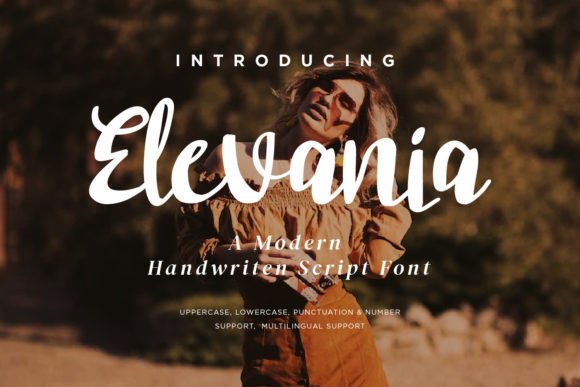
Introducing Elevania Font, the ultimate choice for all your clothing design needs. This captivating and charming creation will instantly draw your attention with its graceful curves and stylish design. Created by the talented Naharstdio, Elevania is more than just a font – it's a work of art that will elevate your designs to new heights.
With its fine strokes and elegant flourishes, Elevania exudes a sense of sophistication and refinement. Every letter is meticulously crafted, showcasing the dedication and expertise of its creator. This font is a true testament to the beauty of handwritten typography, making it the perfect choice for those who seek to make a statement with their designs.
But Elevania is not just about elegance and finesse – it also has a playful personality that adds a touch of whimsy and fun. Its unique combination of sophistication and playfulness sets it apart from other fonts, making it a standout choice for any project that needs a touch of creativity and originality.
Whether you're designing a logo, a website, or a clothing line, Elevania will add a unique and delightful flair to your creations. Its versatility knows no bounds, allowing you to experiment and explore various design possibilities. From bold headlines to delicate calligraphy, Elevania can do it all with effortless charm.